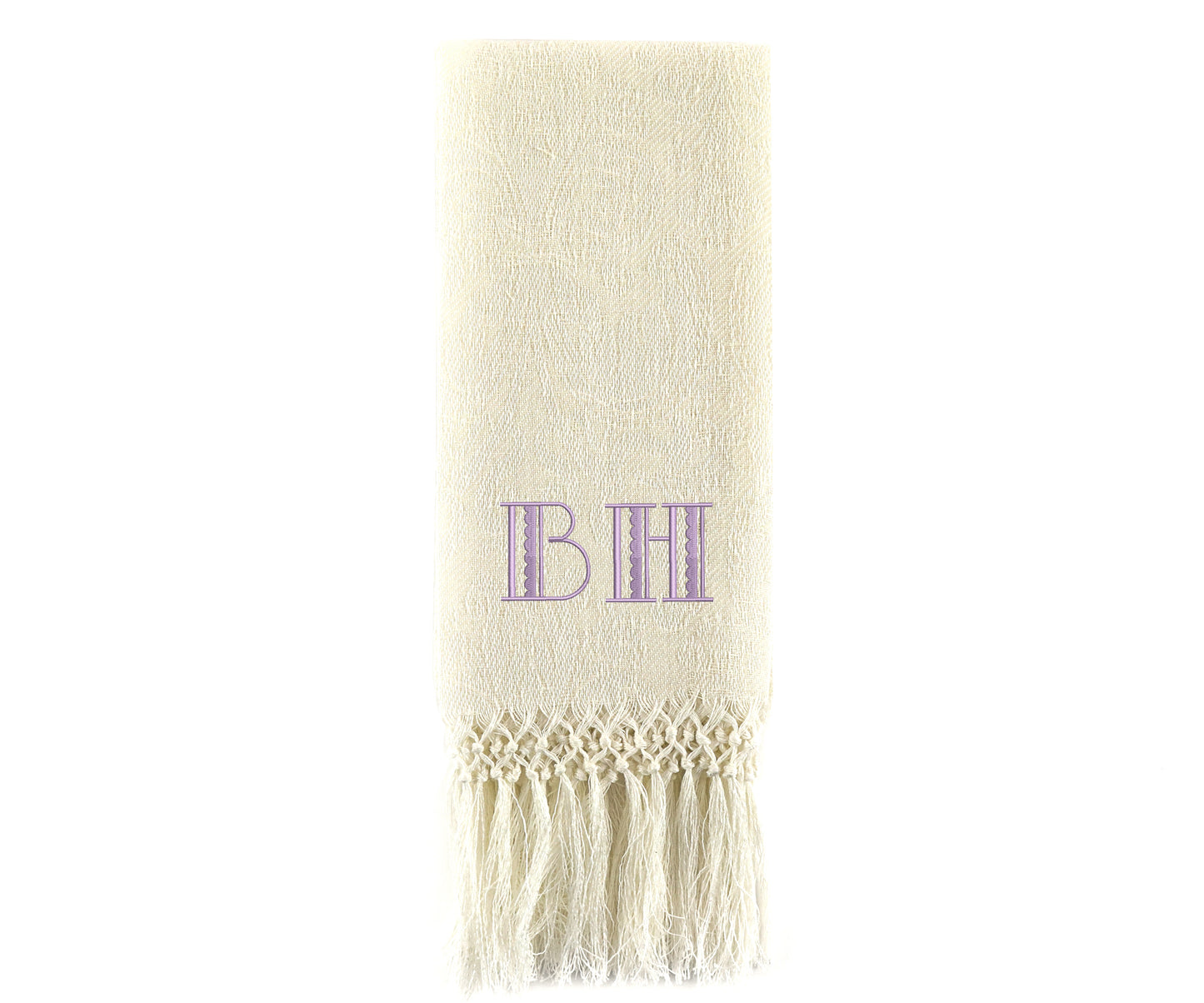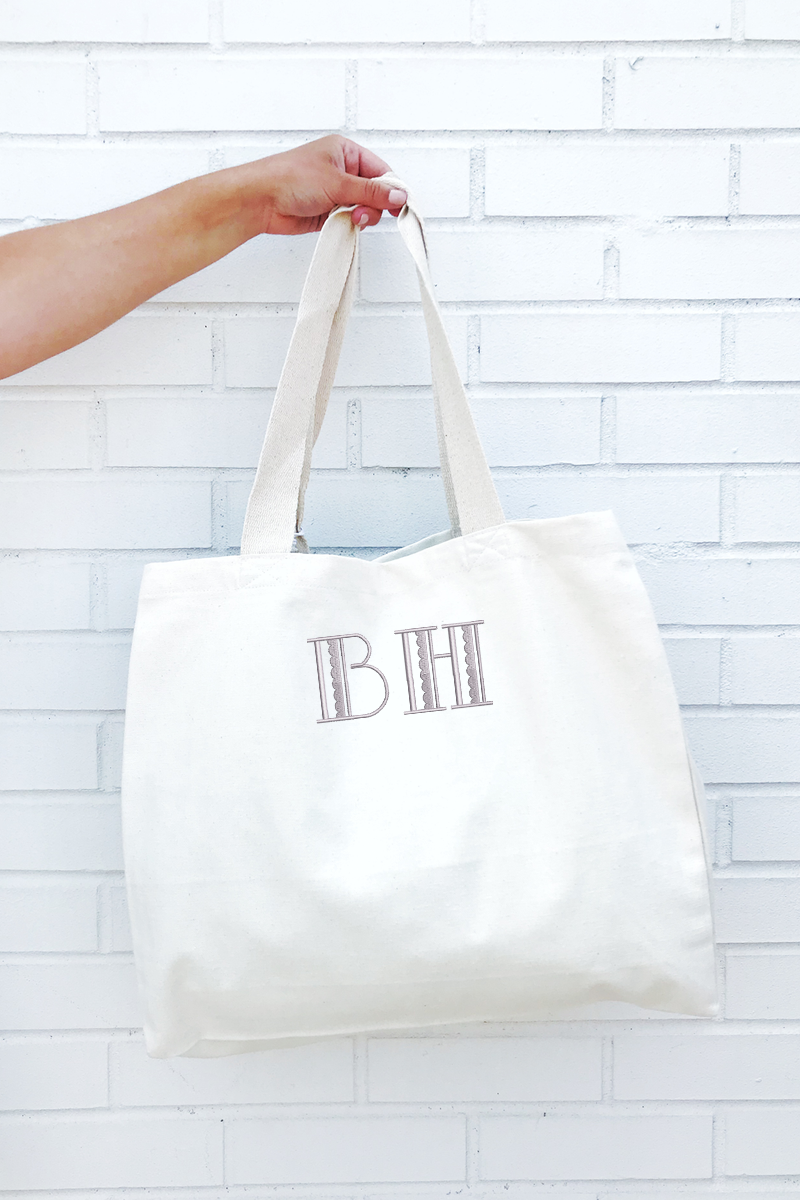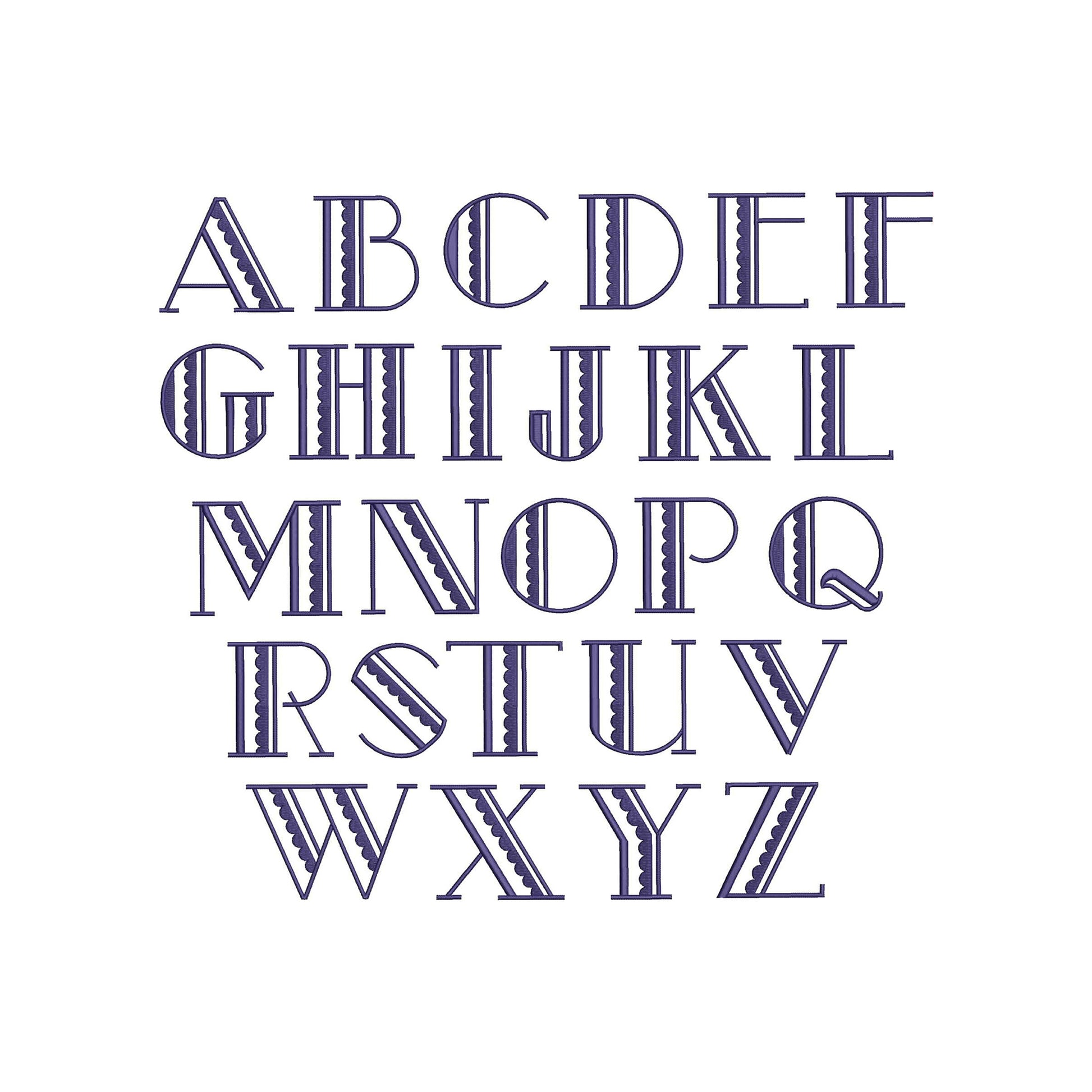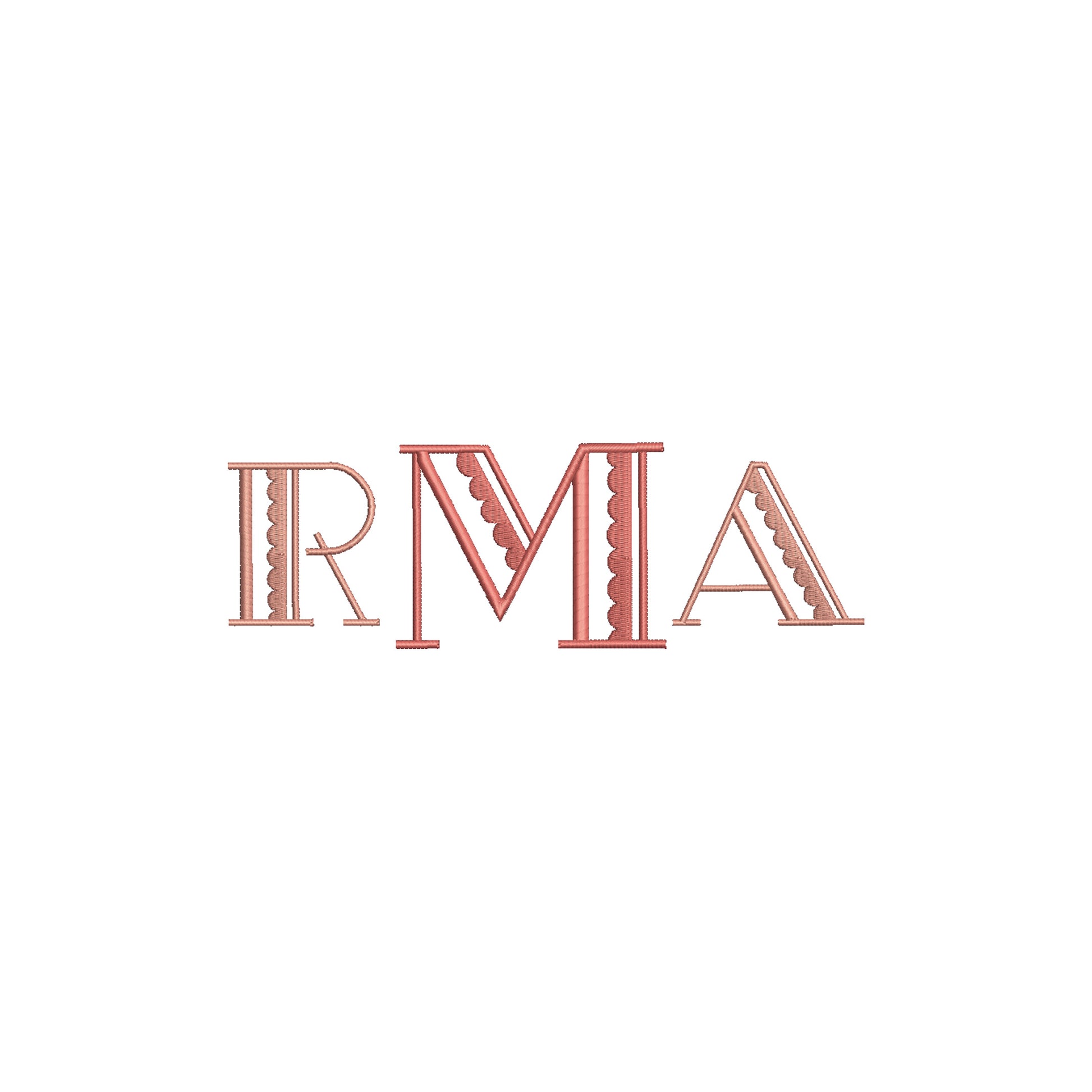
The Scalloped font is an embroidery design including embroidery satin and fill stitches.
All the letters comes in three sizes tall : 1.5 inches, 2 inches, 2.5 inches tall.